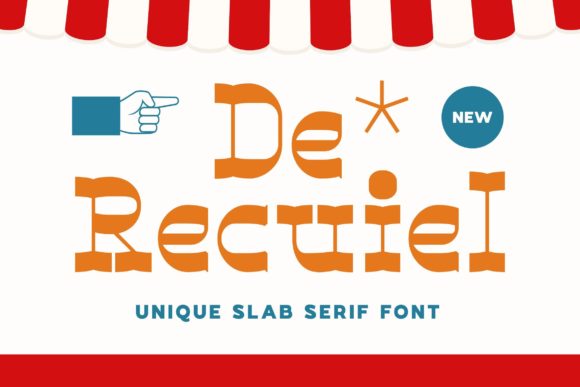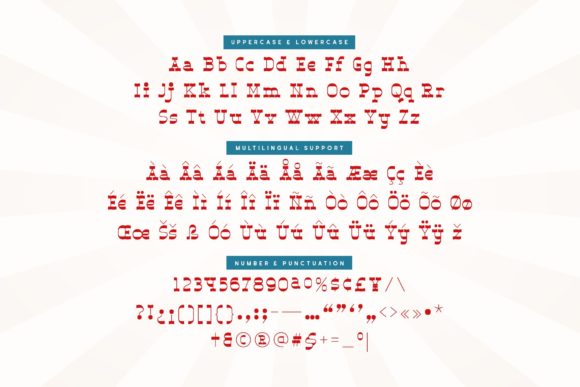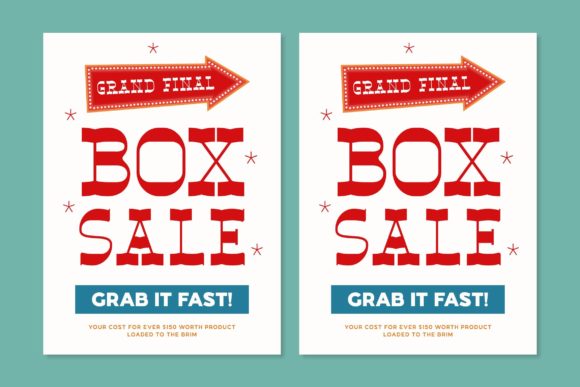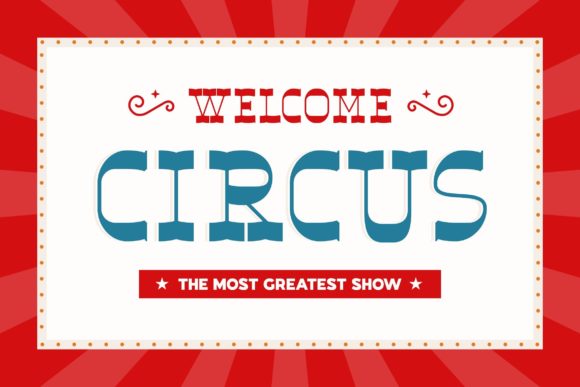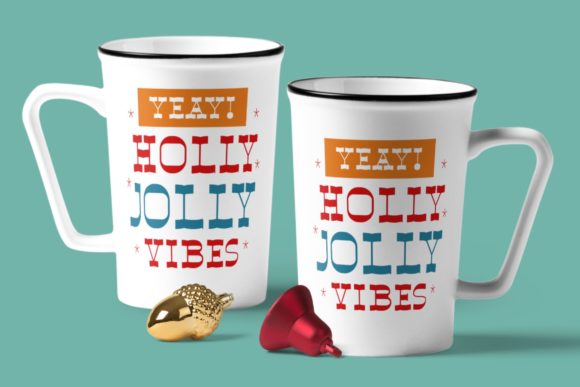
De Recuiel
De Recuiel: A Unique and Playful Slab Serif Font
De Recuiel is a distinctive slab serif font that combines uniqueness with a playful aesthetic. This versatile typeface is designed to add a touch of joy to a wide range of projects, making it perfect for designs that require a fun and lively feel.
Key Features of De Recuiel
• Unique Design: Features distinctive letterforms that stand out from typical fonts.
• Playful Aesthetic: Offers a fun and lively look suitable for various applications.
• Slab Serif Structure: Maintains the characteristic thick, rectangular serifs typical of slab serif fonts.
• Versatile Application: Suitable for a wide range of projects, from cartoons to book covers.
• Joyful Touch: Adds a sense of happiness and energy to any design.
Ideal Uses for De Recuiel
De Recuiel’s unique characteristics make it particularly well-suited for:
• Cartoon-related designs and illustrations
• Children’s games and educational materials
• Quotes and inspirational text
• Titles and headlines
• Brand names and logos
• Book covers, especially for children’s literature
• Posters and promotional materials
When incorporating De Recuiel into your designs, consider the following tips:
• Use for headlines or short blocks of text to showcase its unique and playful style
• Experiment with different sizes to highlight the font’s distinctive details
• Take advantage of its joyful nature in projects that require a touch of fun and energy
De Recuiel is an excellent choice for designers looking to add a unique and playful slab serif font to their typographic toolkit. Its ability to enhance various design projects with a touch of joy makes it stand out in the world of typography. Whether you’re working on logo designs for children’s brands, creating layouts for fun publications, or developing content that requires a lively feel, De Recuiel offers the perfect blend of uniqueness and playfulness.
Add De Recuiel to your creative projects and explore how it can elevate your designs with its distinctive style. From engaging cartoon characters to eye-catching book covers, this font provides the tools to create impactful and memorable typography that resonates with audiences seeking a fun and energetic aesthetic. It’s versatile enough to be used in various contexts, from vintage-inspired designs with a playful twist to cute and friendly layouts that need an extra touch of uniqueness.
Whether you’re creating a magical and whimsical atmosphere for children’s content or aiming for a more lighthearted and fun mood in your designs, De Recuiel can adapt to your needs. Its flexibility allows it to work well in both playful, vintage-style projects and contemporary designs that require a joyful touch. For those looking to add a touch of fun with a unique feel, this font can even complement vintage-inspired creations with a distinctive, playful twist.